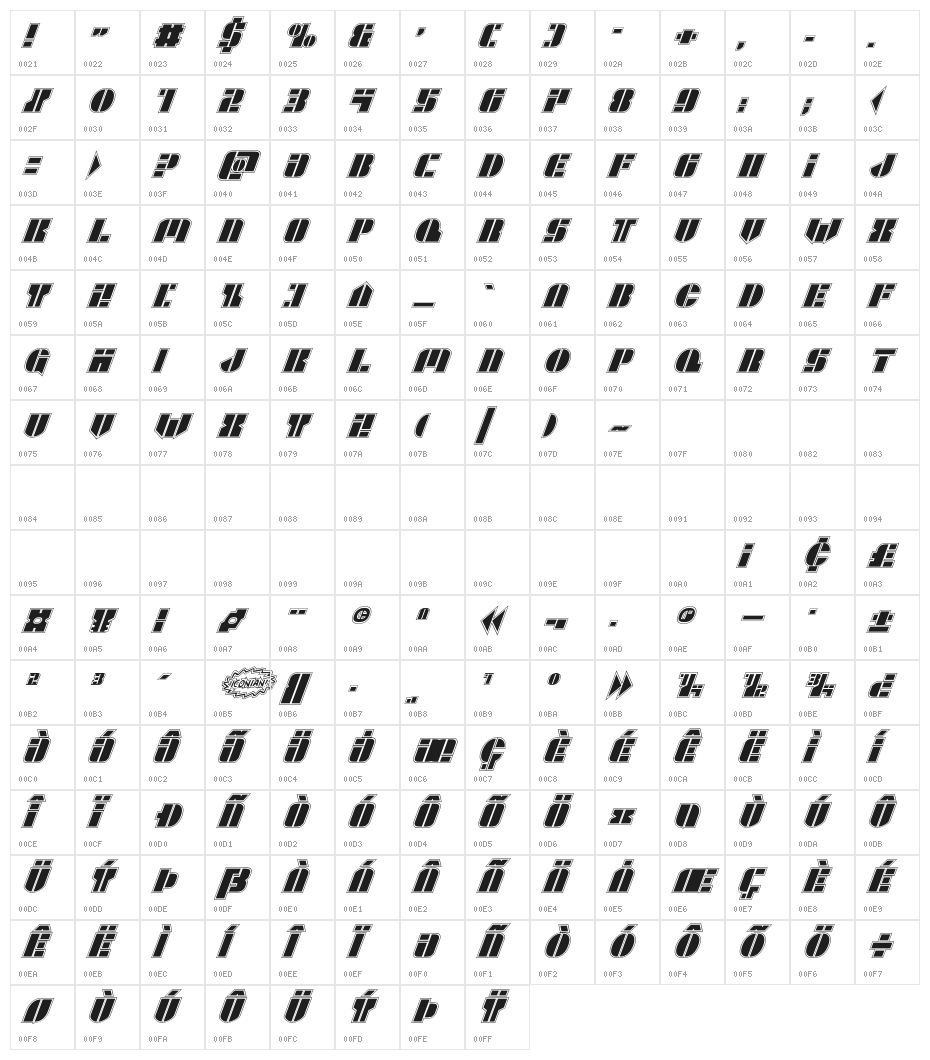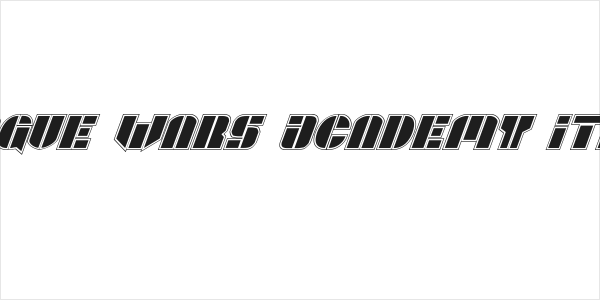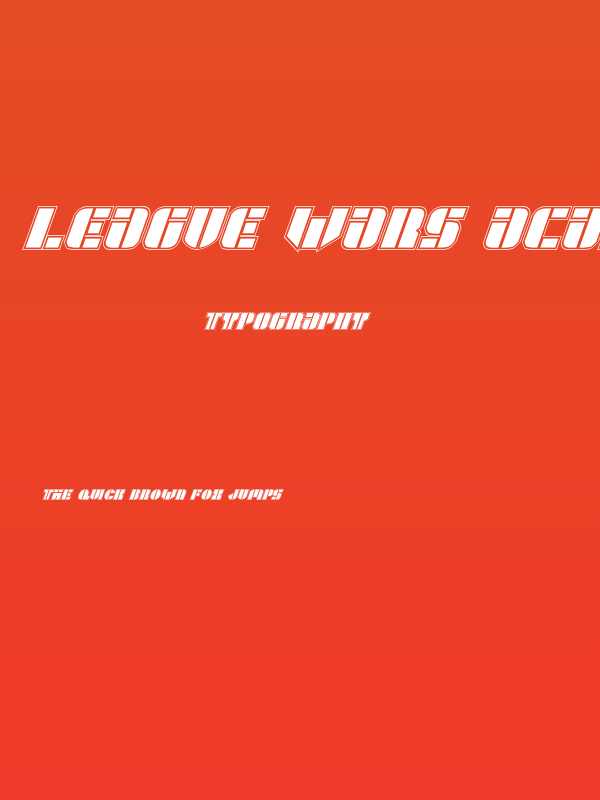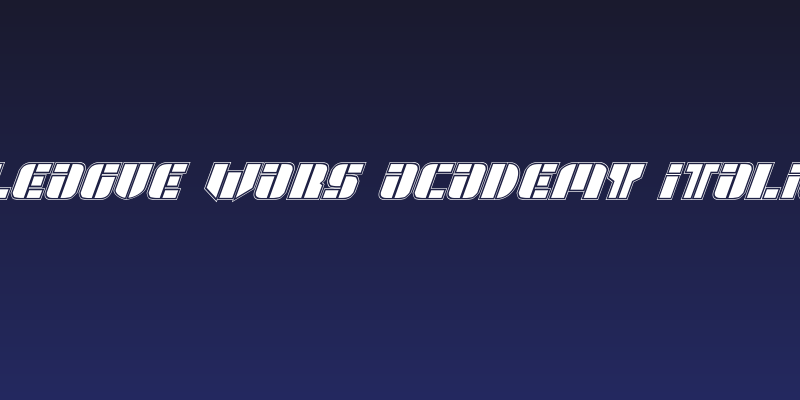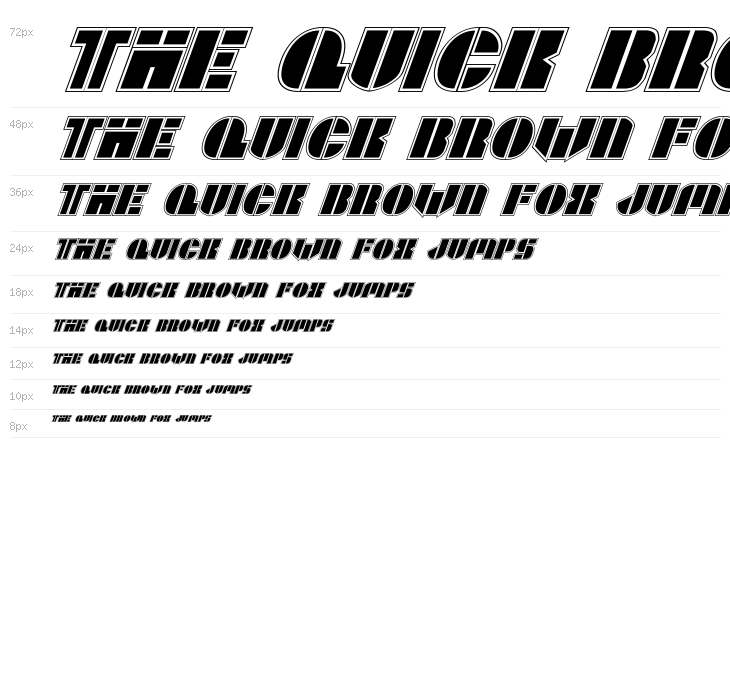
League Wars Academy Italic Font
League Wars Academy Italic Description
This font features a bold, italicized style with a strong geometric influence. The characters are constructed with thick, angular lines that create a sense of movement and energy. The uppercase and lowercase letters maintain a consistent width, giving the font a uniform appearance. The numbers and special characters follow the same design principles, ensuring cohesion across all elements. The font's boldness and unique style make it stand out, while the italic slant adds a dynamic touch. The character spacing is tight, enhancing the compact and impactful look.